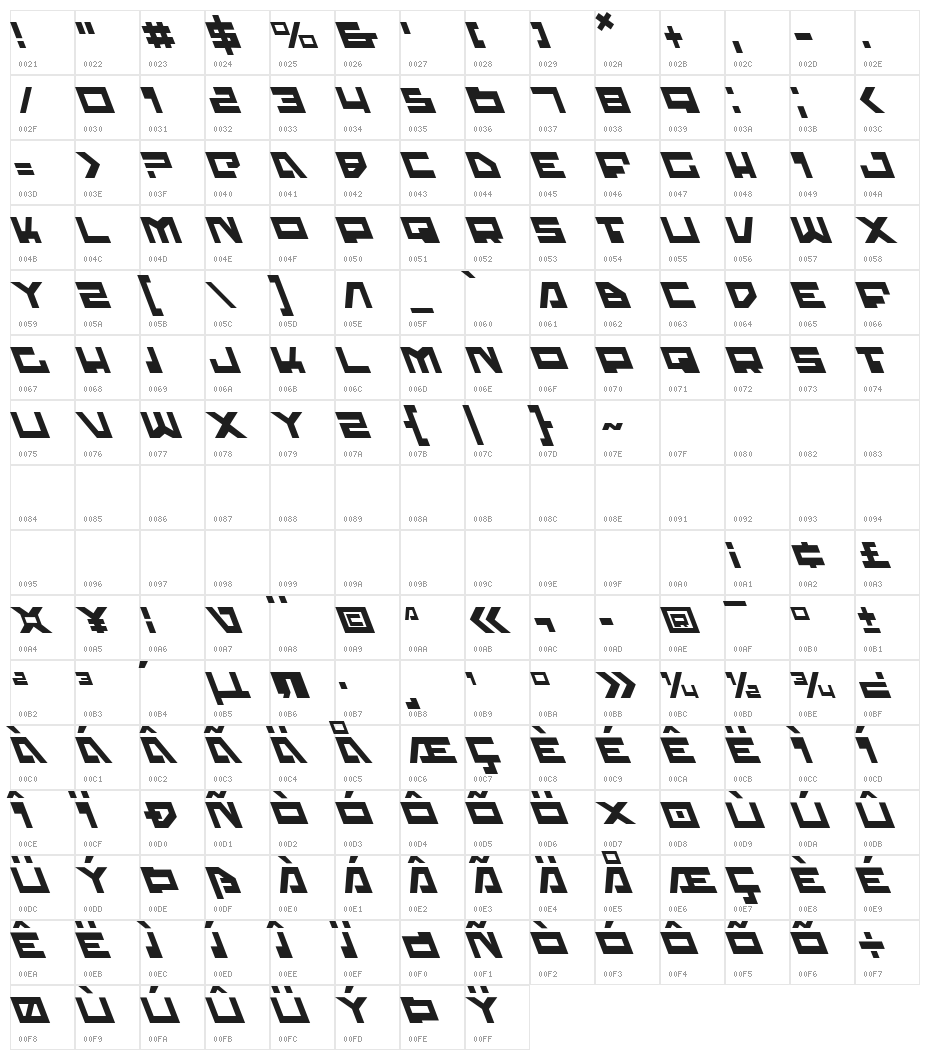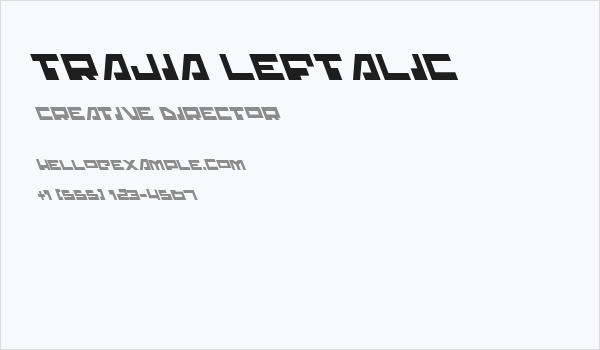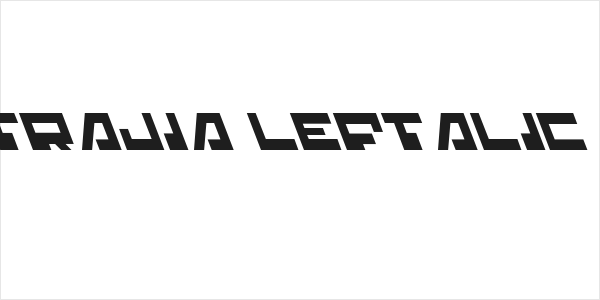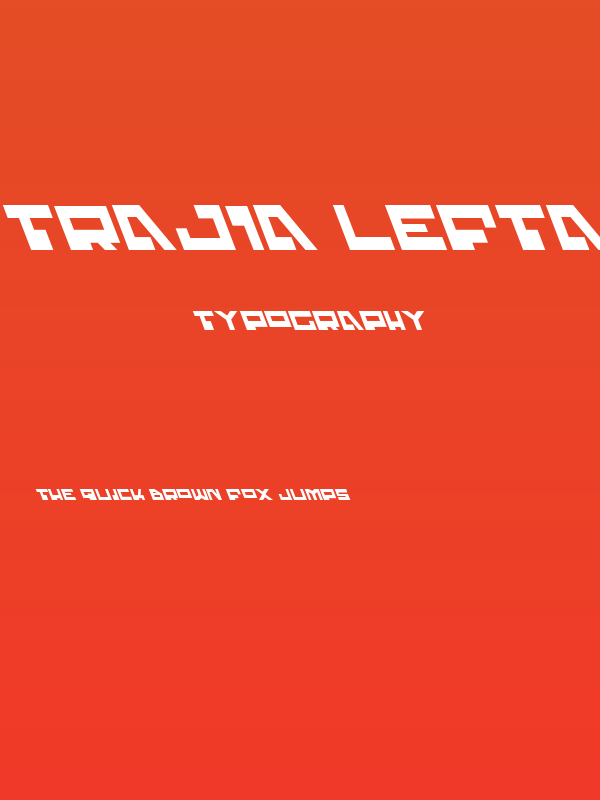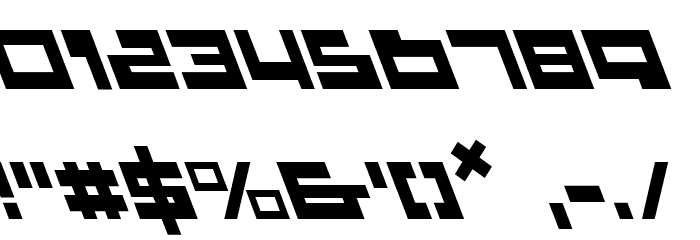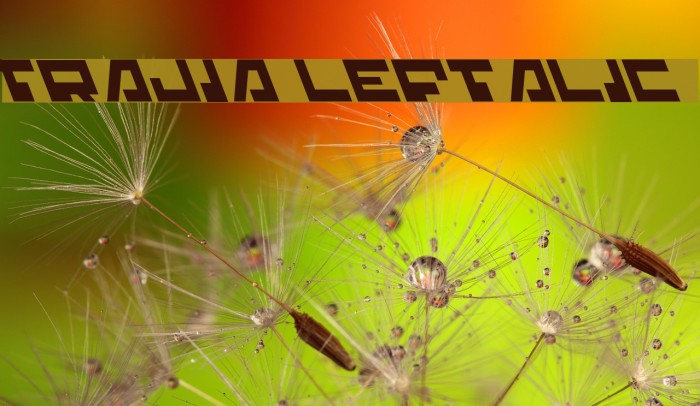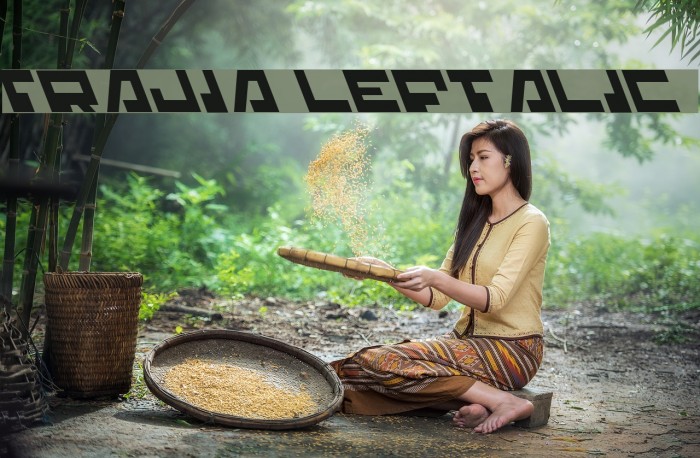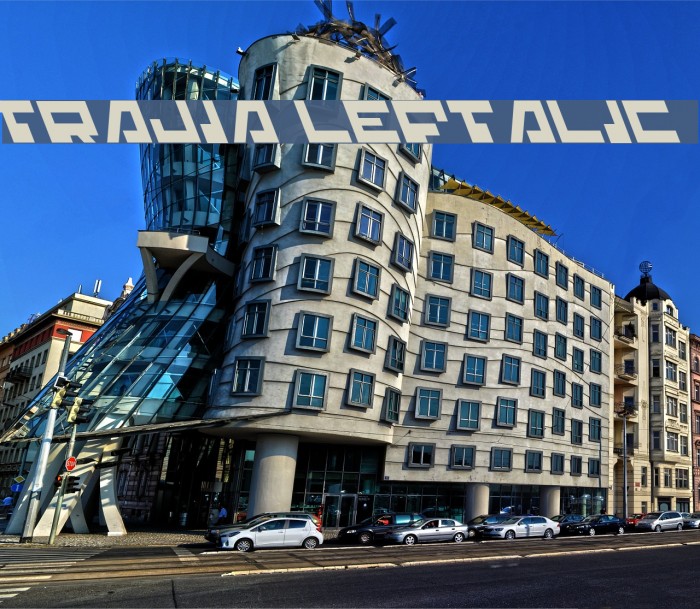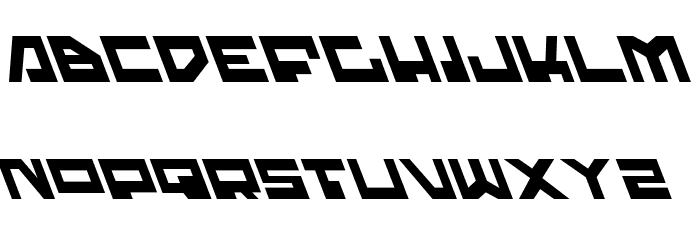
Trajia Leftalic Font
Trajia Leftalic Description
This font features a bold and angular design with a futuristic and geometric aesthetic. Each character is crafted with sharp edges and a distinct slant, giving it a dynamic and forward-moving appearance. The uppercase and lowercase letters maintain a consistent style, with the uppercase being slightly more pronounced. Numbers and special characters follow the same angular theme, ensuring uniformity across all elements. The font's unique style makes it stand out, ideal for projects that require a modern and edgy look.
| Overall Style | Futuristic |
| Proposed Projects | Ideal for sci-fi themed posters, video game titles, tech branding, and futuristic logos. |